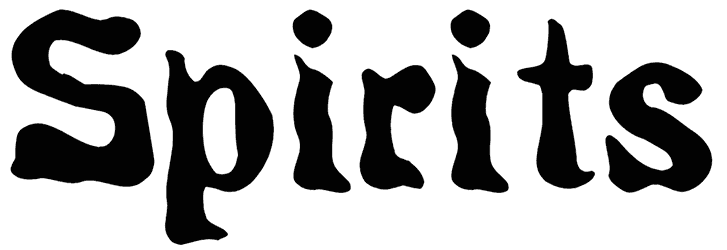
Spirits Font
Spirits is a wave font that makes wandering spirits guests of your projects and can create a silent sense of fear in them. This horror font has thick letters that include an eerie twist and are happy and exciting at the same time.
So if you need an attractive cover for your new children’s story or want to invite everyone to see your new movie with an exciting teaser, shout your message at Silent Spirits.